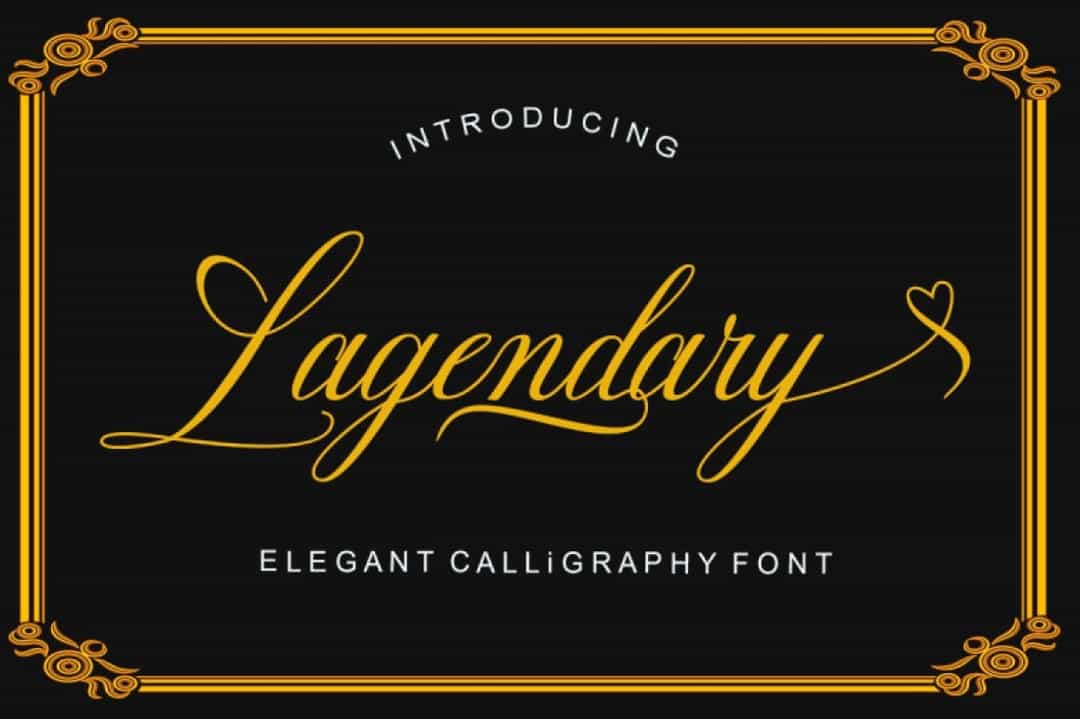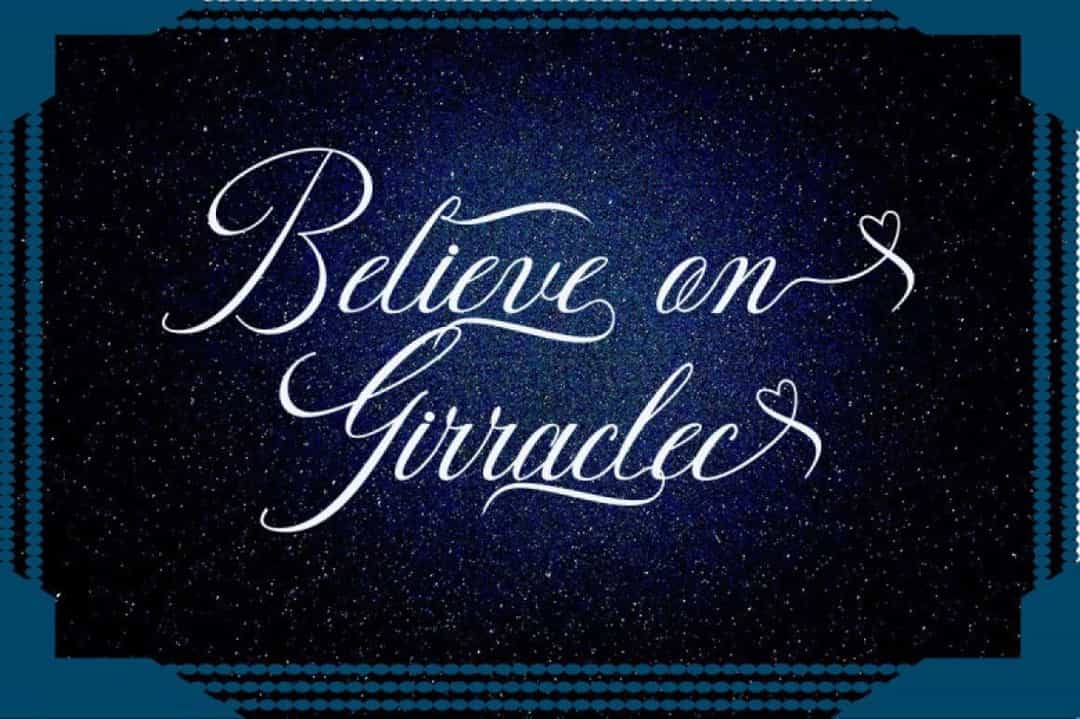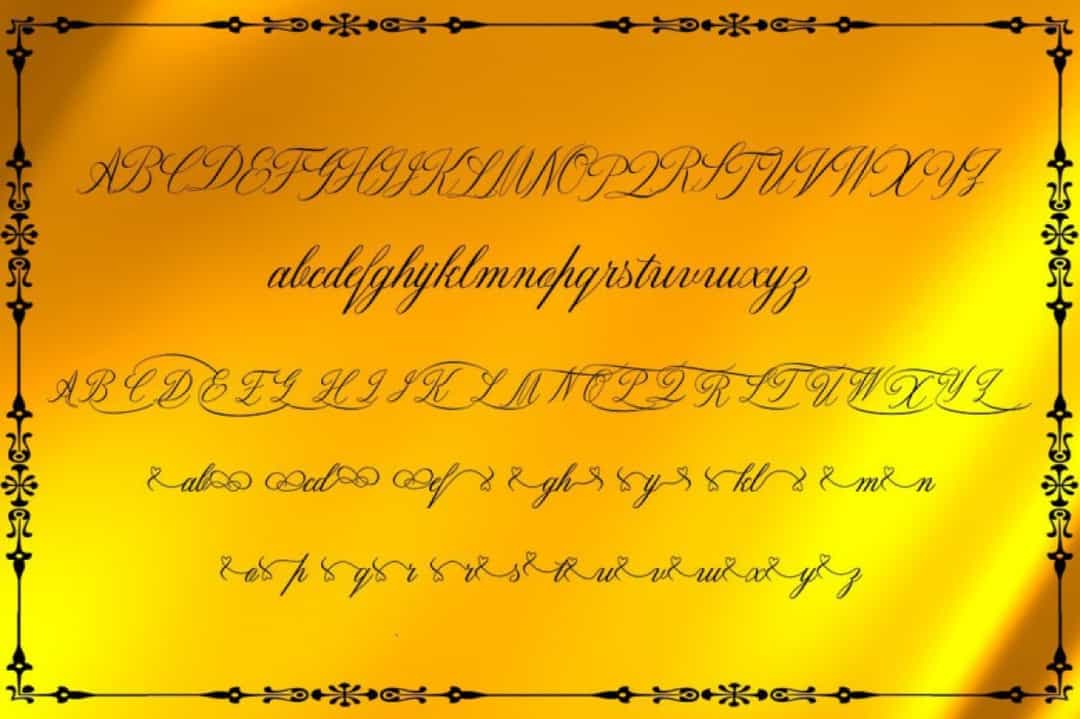
The Lagendary is a new calligraphy typeface featuring elegant handwriting and amazing calligraphic creations. Perfect for use in wedding invitations, logos and designs, signatures, T-shirt letters and letterheads… this PUA encoded font allows easy access to its glyphs as well as its swashes!